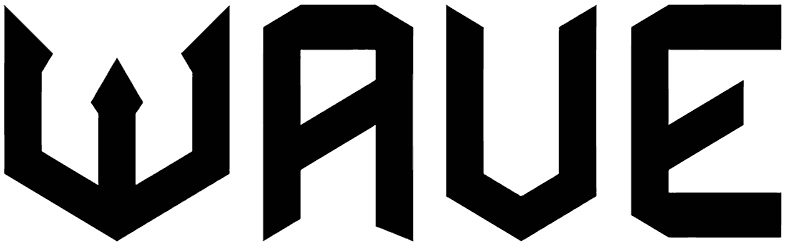
Wave Font
Designed bySlipStreamGFX
You can use this geometric techno, sharp font for anything from logos and blog headlines to branding and poster production; even though Wave doesn’t have lowercase letters, it will add a splash of personality to your designs and help them stand out from the crowd.
Includes one A-Z font, and numbers 0-9. Designed for use with logos and poster design.